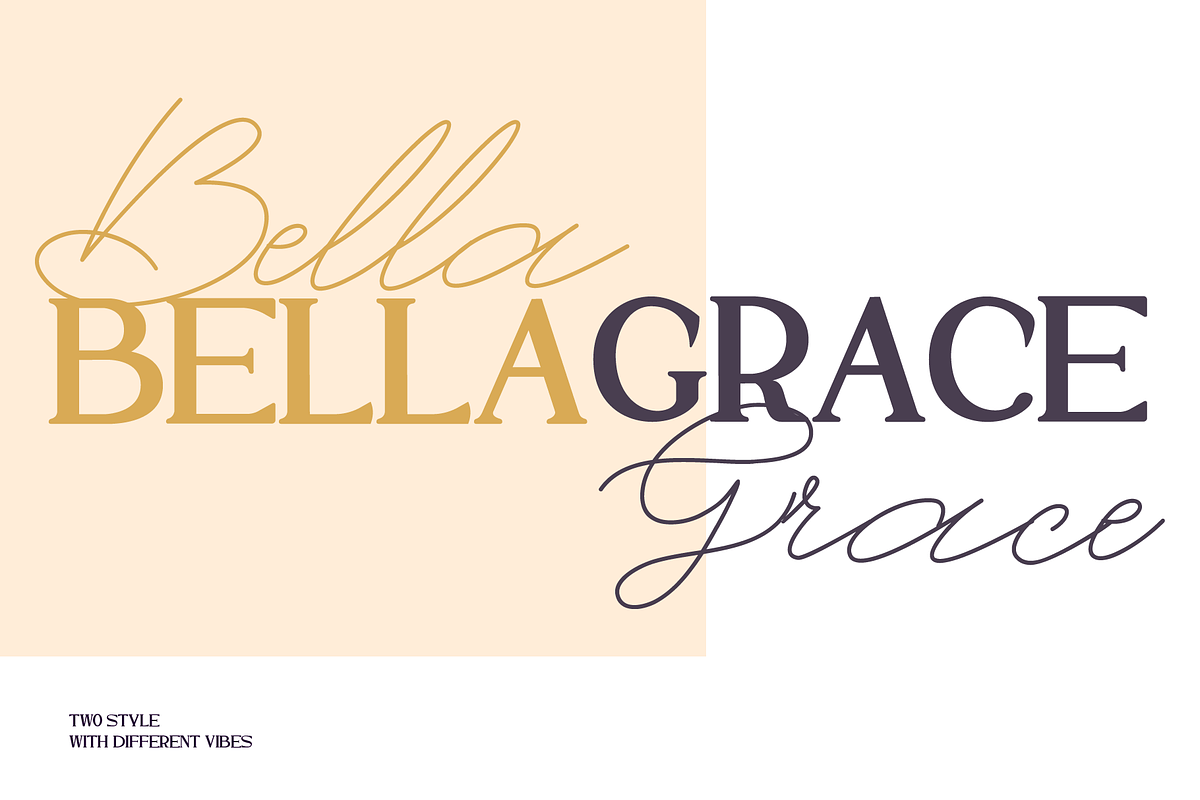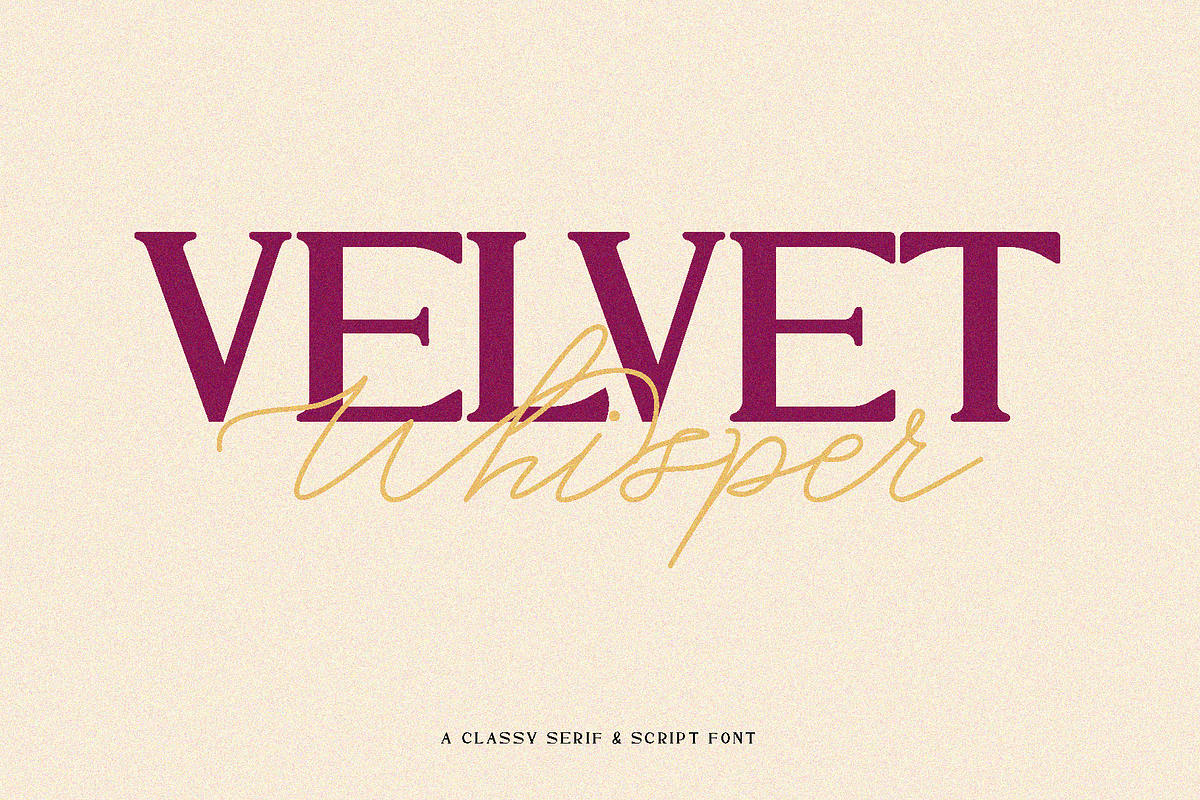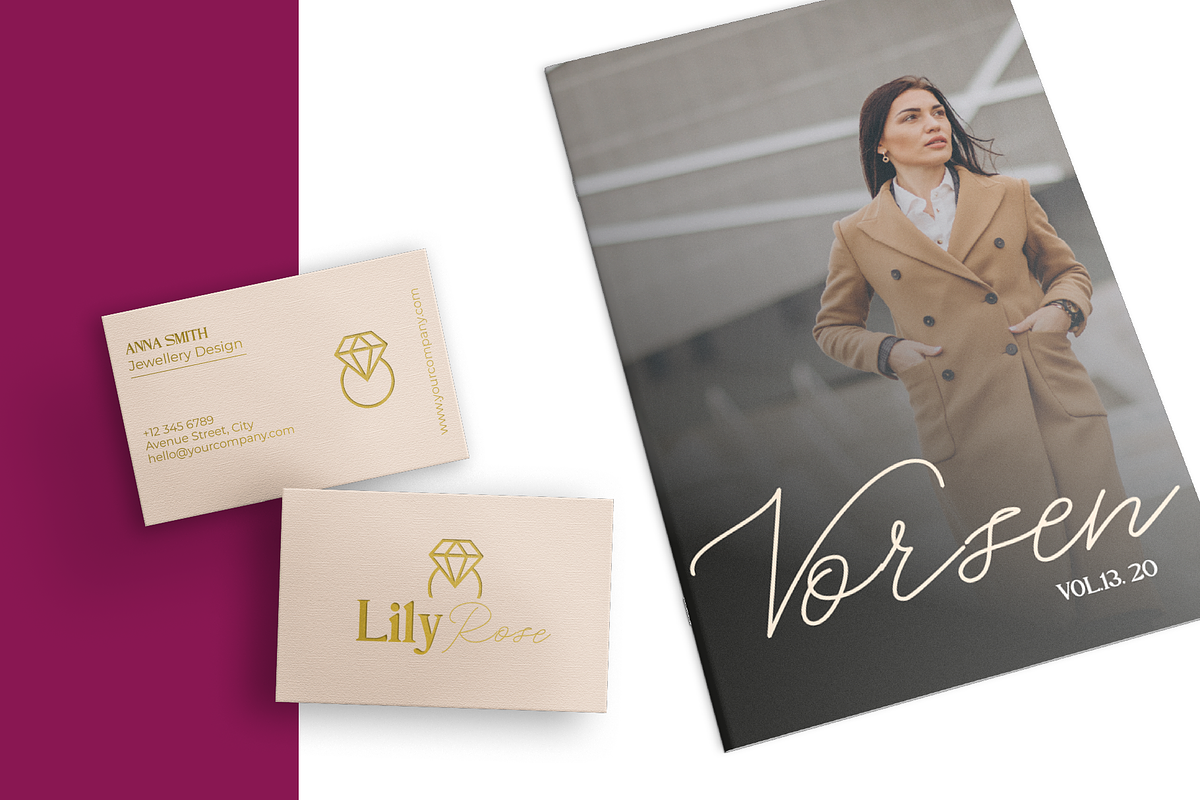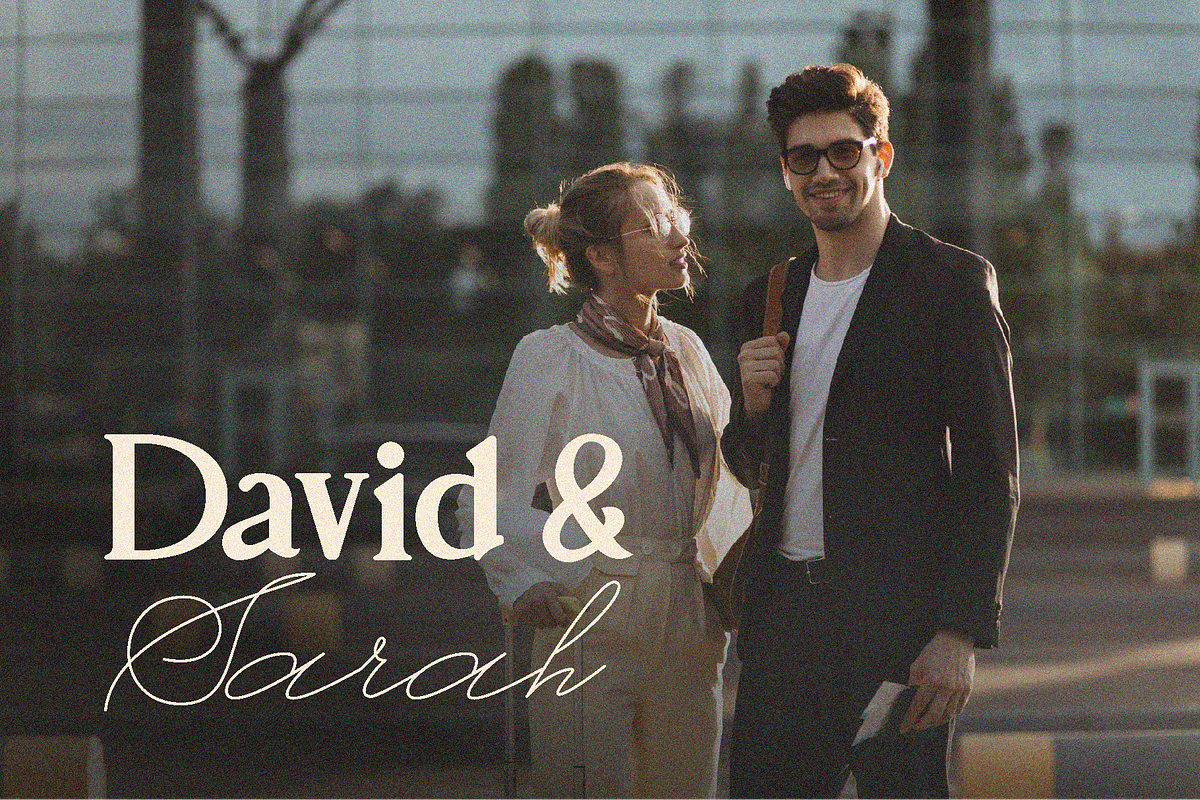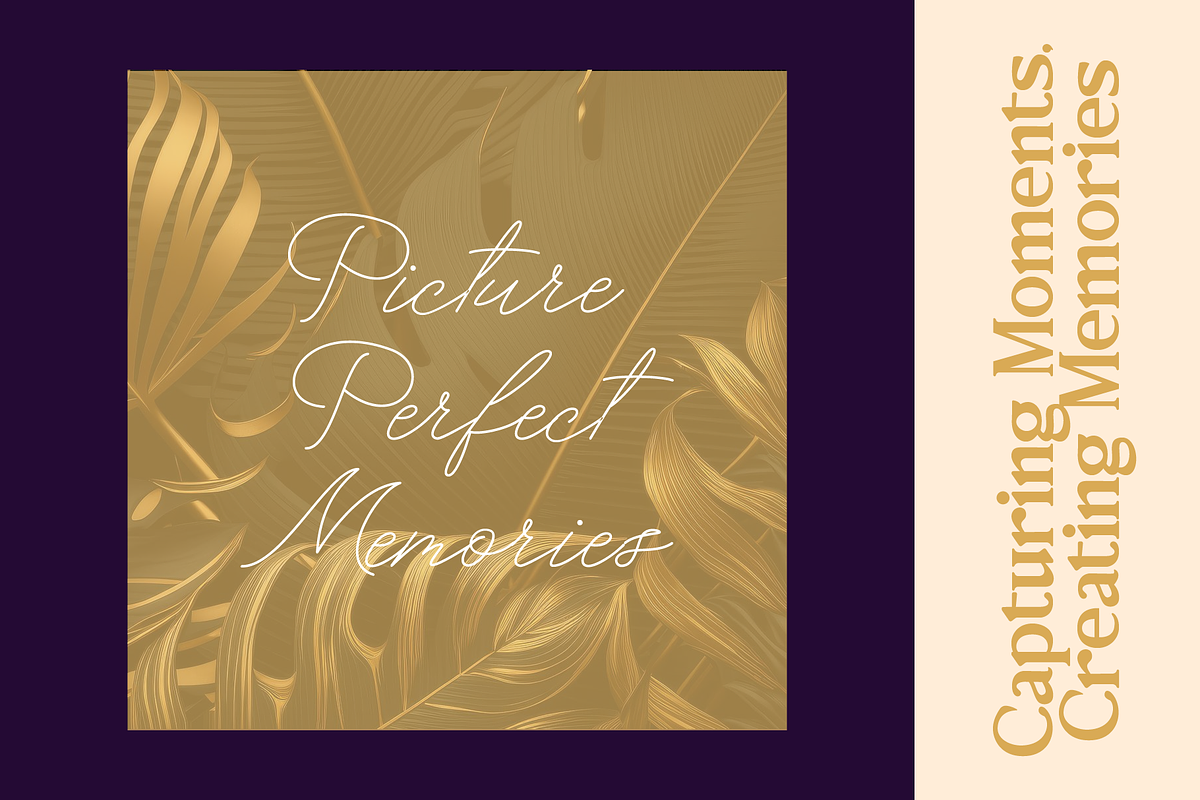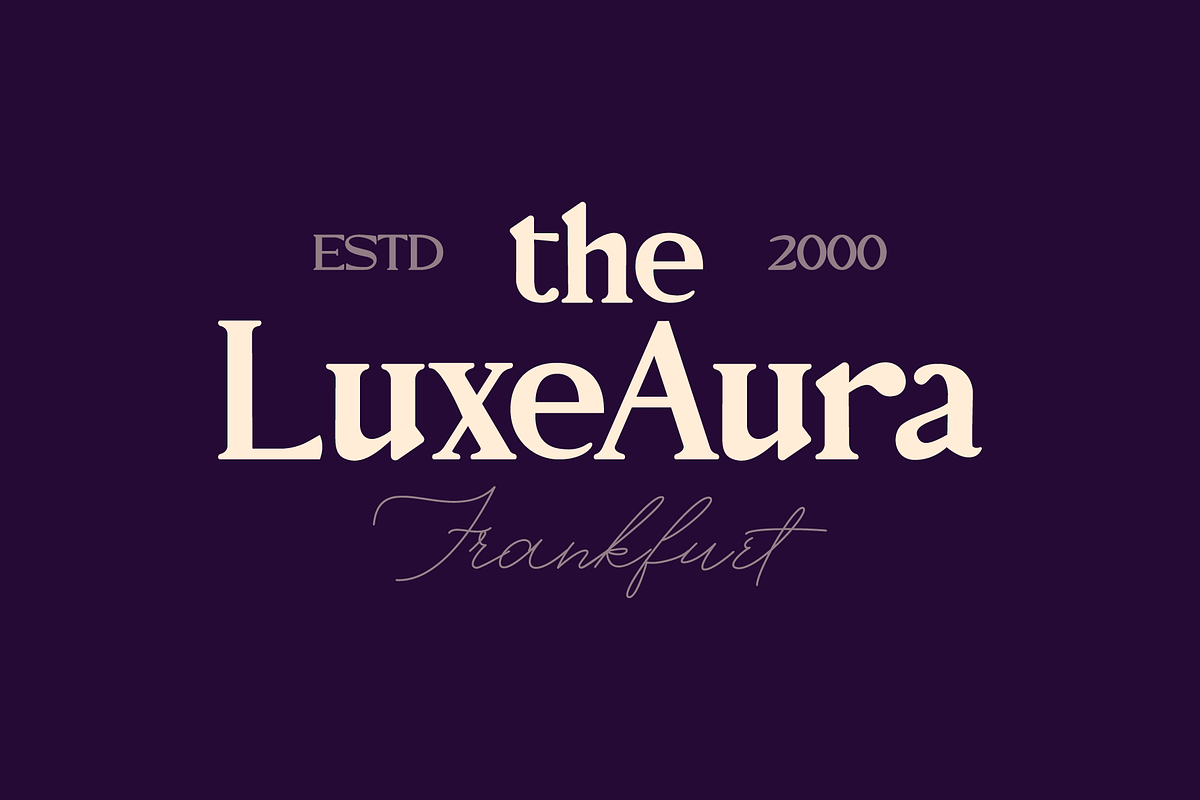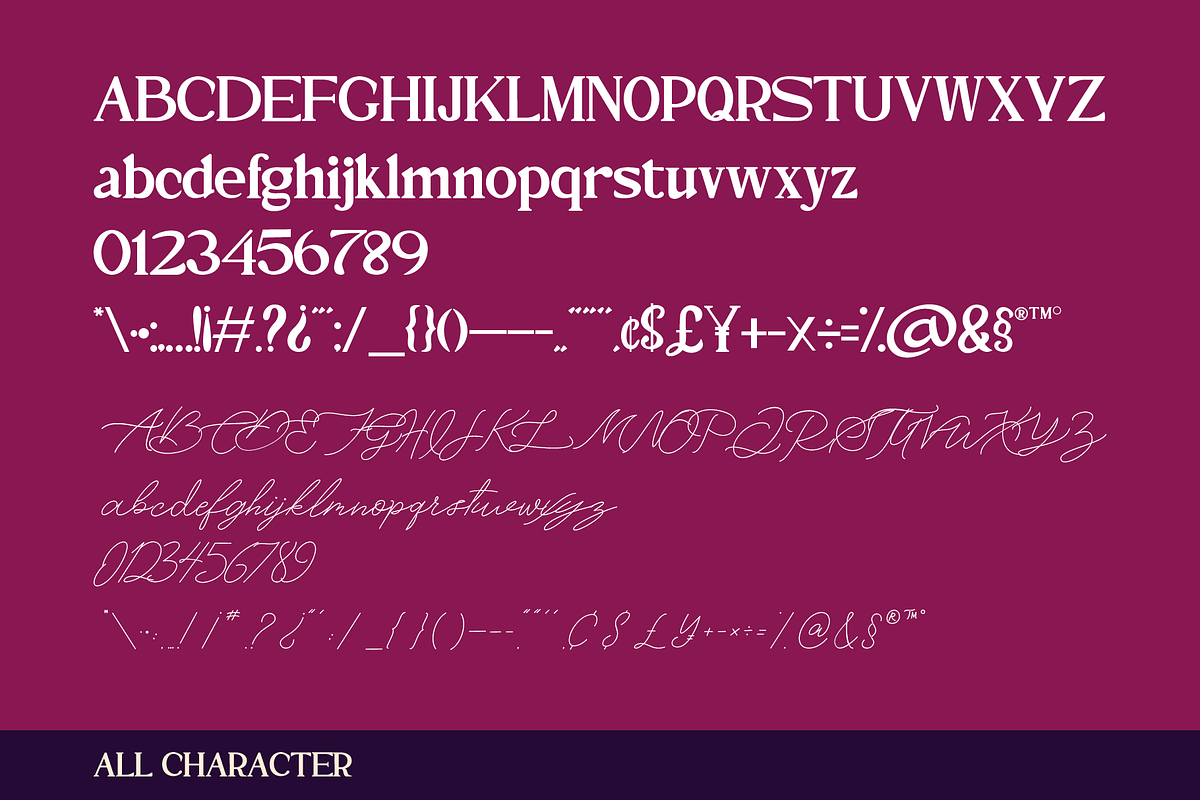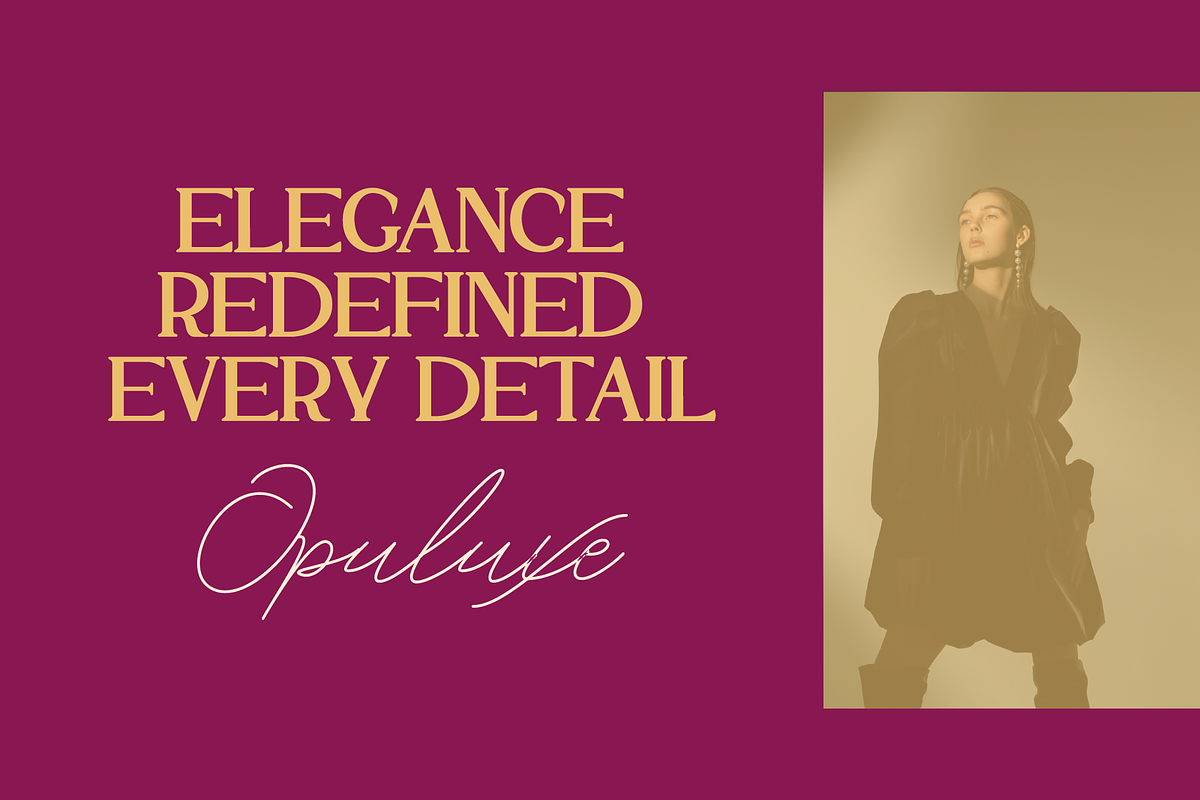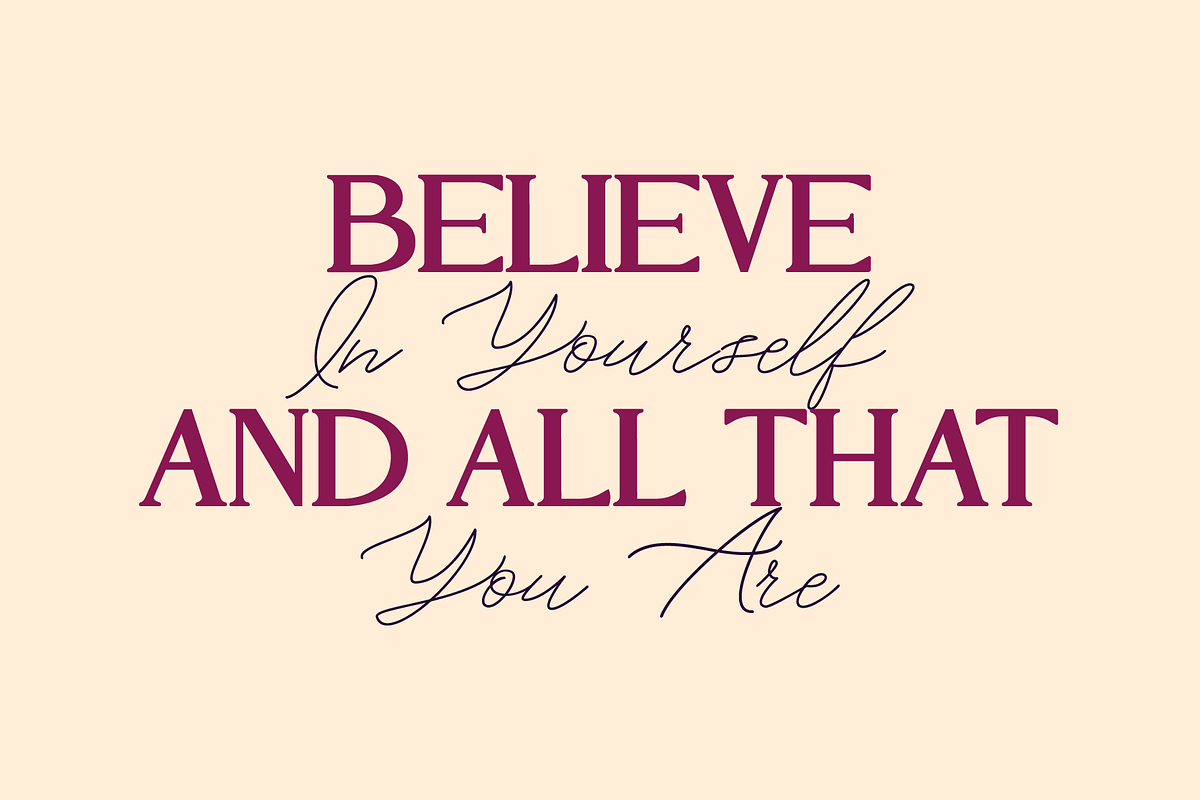
Velvet Whisper Serif Script Font
Introducing Velvet Whisper Font Duo: A sophisticated serif typeface coupled with a playful handwritten script. Embracing a fusion of modern elegance and whimsical charm, Velvet Whisper Font Duo delivers a touch of luxury and refinement to a variety of creative projects. Whether adorning websites, crafting contemporary logos, defining brand identities, sprinkling social media quotes, designing wedding stationery, or bringing any imaginative concept to life, Velvet Whisper Font Duo invites you to express your vision with grace and allure.
- ligature feature